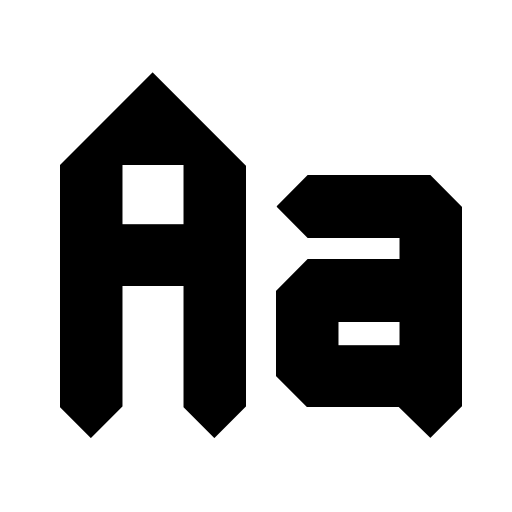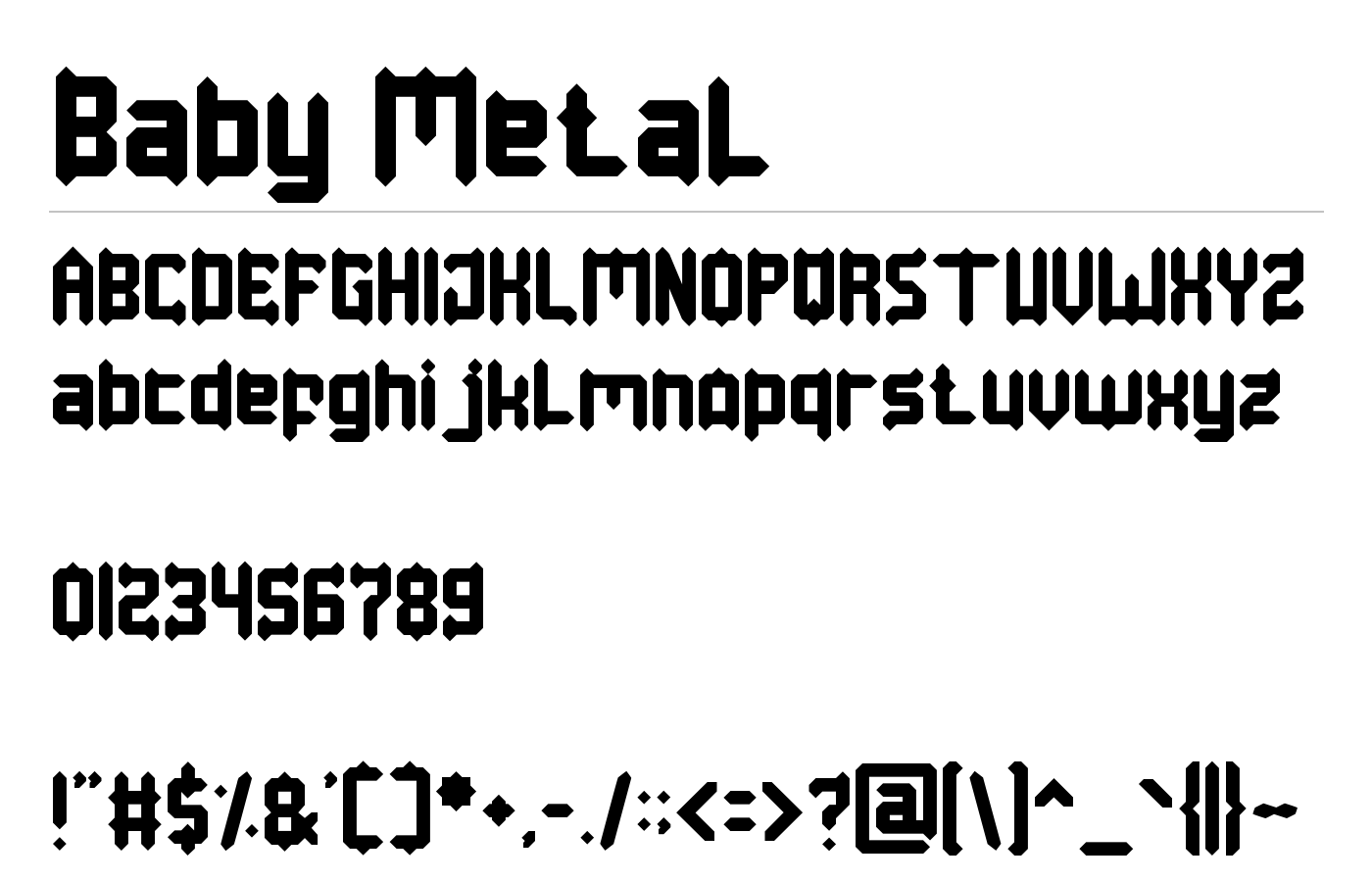
Baby Metal is a bold, angular sans serif font with a strong geometric, almost industrial feel, featuring sharp corners and consistent stroke weight that evoke a modern, tech-inspired style. Its unique shapes and high x-height give it a striking, energetic personality ideal for bold headlines, logos, and designs needing a futuristic or edgy vibe. This font works well for branding and creative projects that want to stand out with a distinctive, powerful look.
Baby Metal Font
About Baby Metal Font
| Font family | Baby Metal Font |